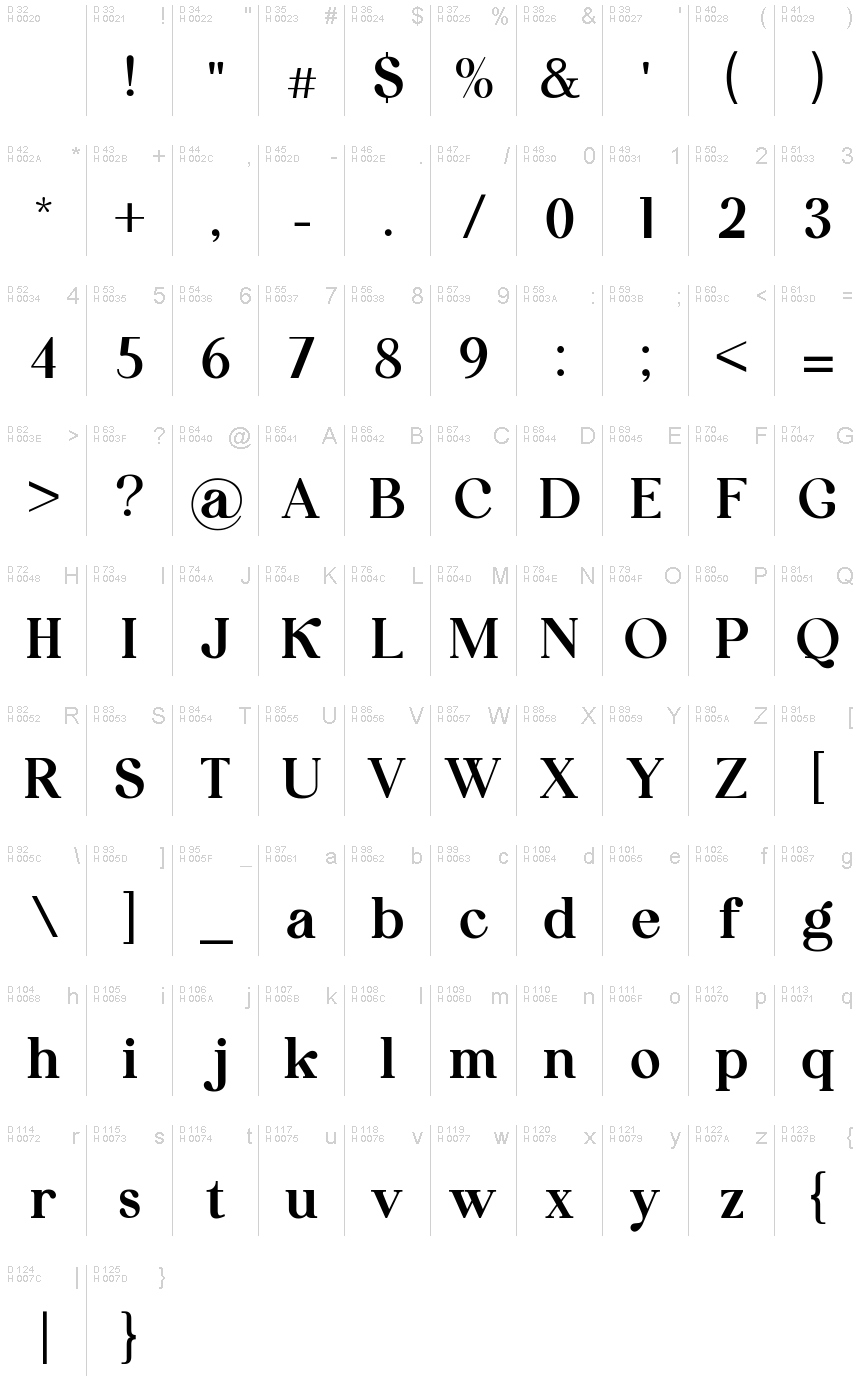
FlagoriaCalintha Regular
Flagoria Calintha, a captivating serif font crafted by UI Creative, exudes a harmonious blend of elegance and timelessness. Its refined letterforms and nuanced stroke variations evoke a sense of sophistication and refinement, perfect for projects seeking a touch of classic charm. The font's seamless transitions and balanced proportions create a visually appealing and harmonious aesthetic, making it a versatile choice for a wide range of design applications.
This font's versatility extends across various mediums, from editorial layouts and formal correspondence to high-end branding and signage. Its distinctive characteristics lend themselves beautifully to projects that require a touch of sophistication and timeless appeal, such as luxury product packaging, prestigious event invitations, or the headers and subheadings of elegant web designs.